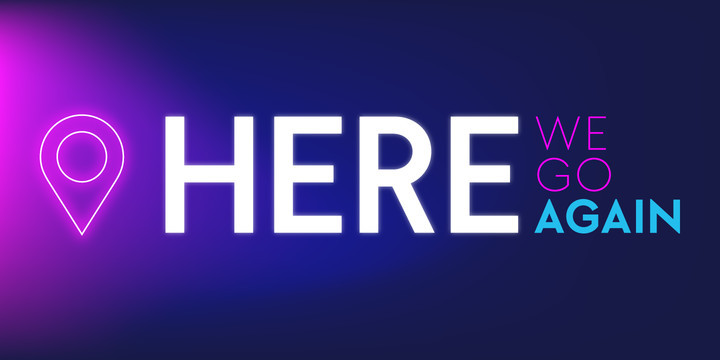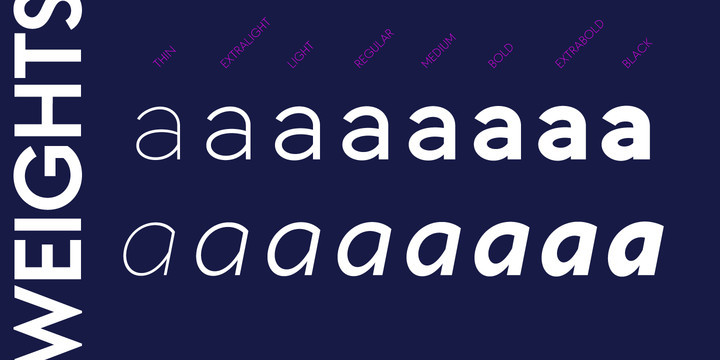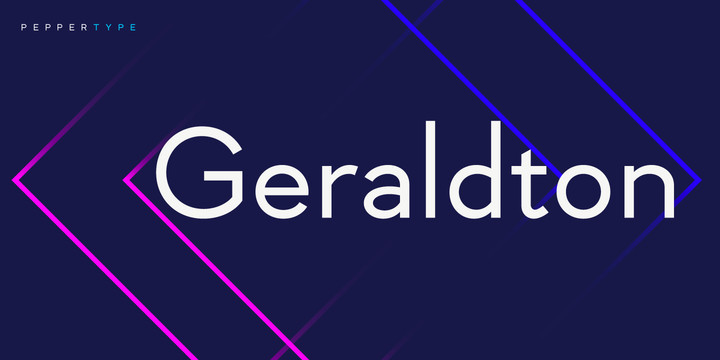
Geraldton Font
Geraldton is a warm and friendly geometric sans-serif typeface in 8 weights with matching italics. Its low x-height and sharp angles are inspired by geometric types of 1920s and 1930s completed with a slight modern humanist touch.